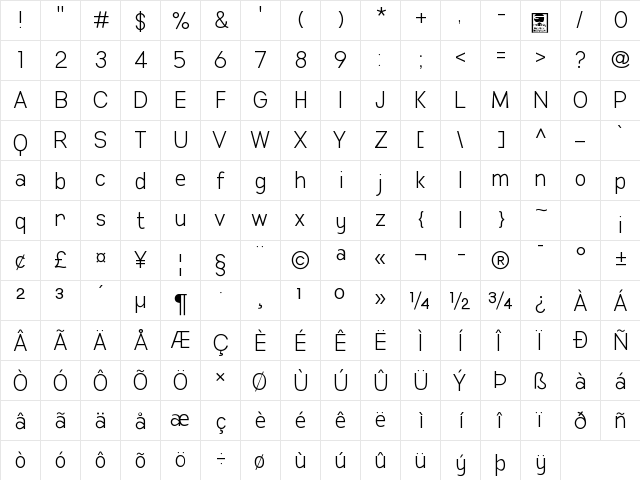
Manti Sans Light Demo Regular
| Foundry | StudioTypo |
| Designer | Mehmet Abac |
Design Context for Manti Sans Light Demo Typeface
Manti Sans Light Demo takes a measured approach to typography — its balanced proportions and neutral character make it a reliable workhorse for both digital and print work. Its slender proportions lend an understated elegance to any composition.